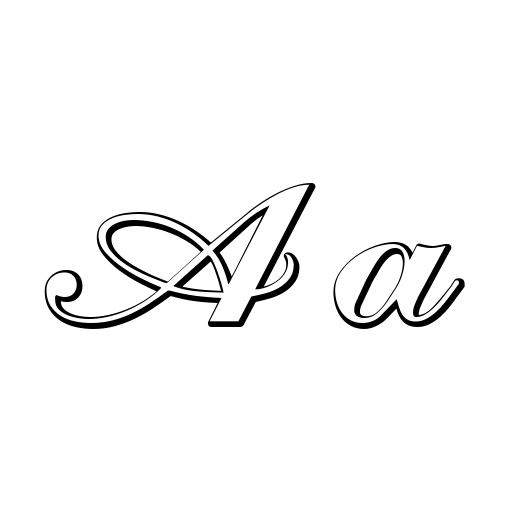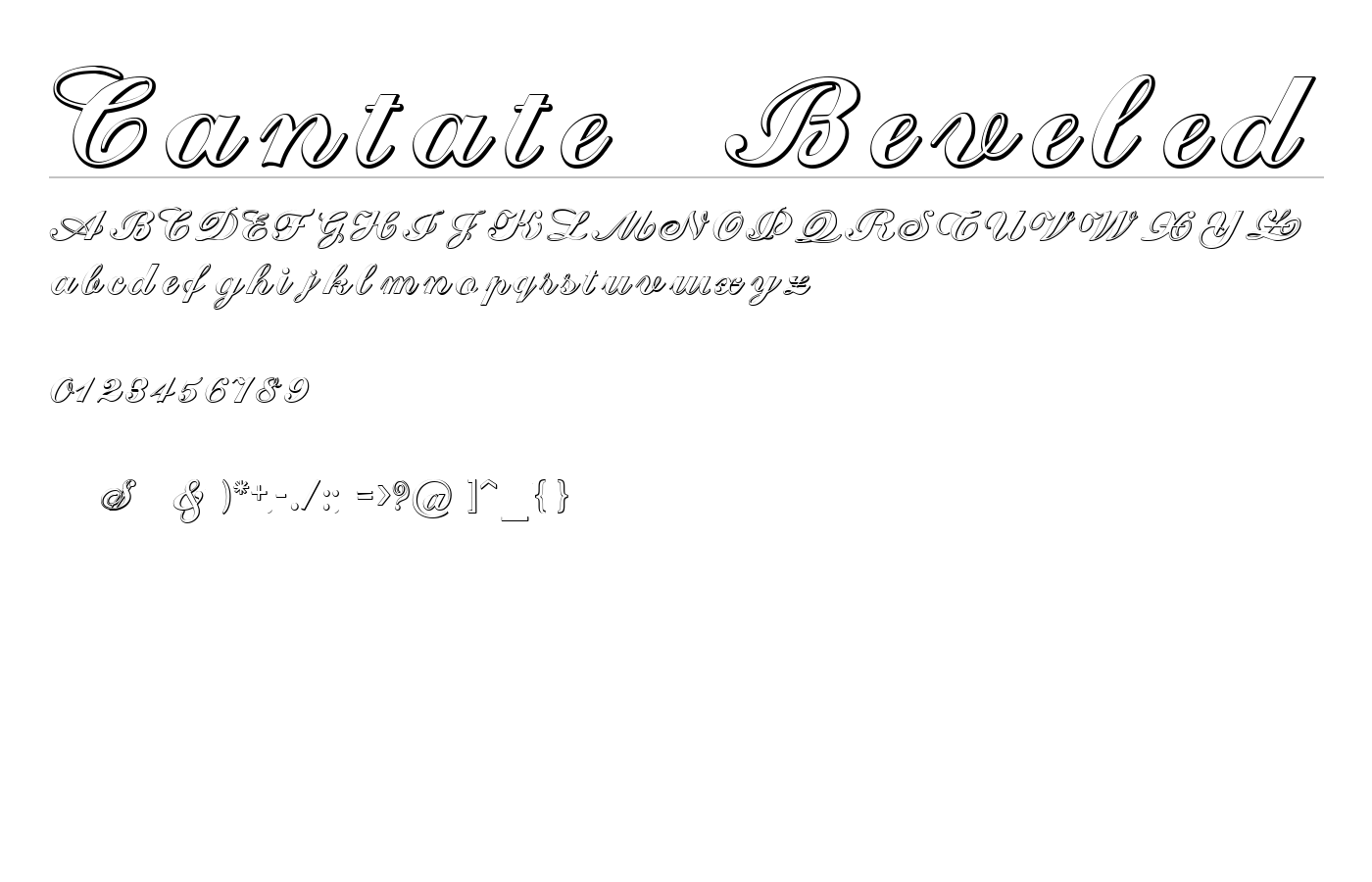
Cantate Beveled is an elegant script font with a distinctive beveled edge that adds depth and sophistication to its flowing, calligraphic letterforms. Its light weight and delicate curves create a refined, vintage feel, making it perfect for luxury branding, invitations, and artistic headlines where a graceful, ornamental touch is desired. This font shines in decorative contexts, offering a stylish and timeless personality.
Cantate Beveled Font
About Cantate Beveled Font
| Font family | Cantate Beveled Font |
| Release date | 2011-12-06 |